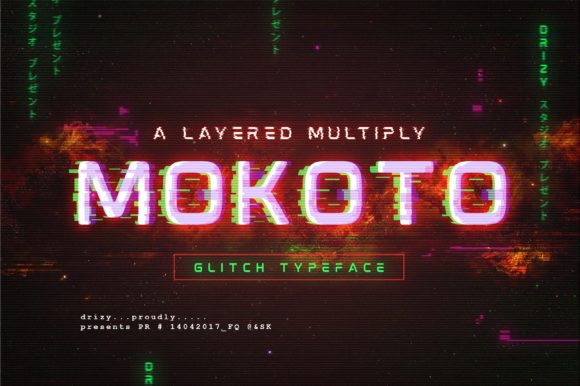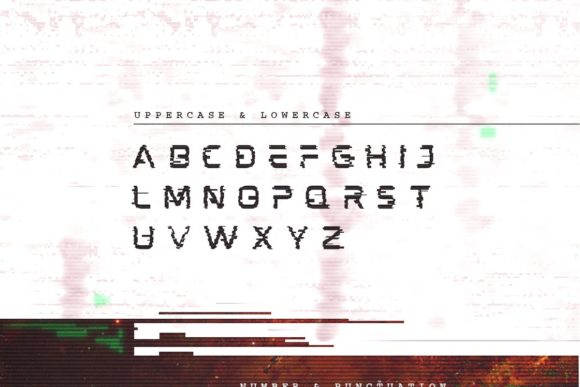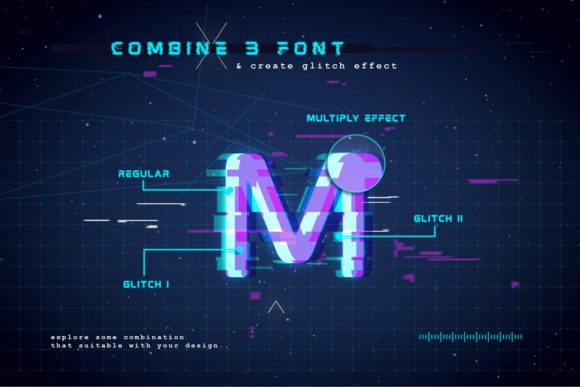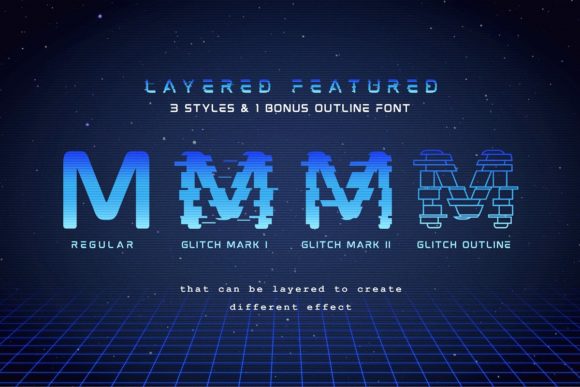
Mokoto Font: A Glitchy Display Font for Bold Logo Design!
About the Mokoto Font
The Mokoto Font is here to transform your projects with its distinctive character and style. Mokoto is a glitchy and digital display font with a postmodern feel. Get inspired by its bold charm!
Mokoto excels in headlines, short impactful statements, and branding applications where a bold, slightly rebellious personality is desired. Its unique glitch effect makes it ideal for projects related to technology, gaming, or music with a futuristic or postmodern edge. Avoid using Mokoto for body text or long paragraphs; its highly stylized nature hinders readability at smaller sizes.
Pairing Mokoto effectively requires a contrasting yet complementary font. A clean sans-serif like Open Sans or a geometric sans-serif like Futura would provide a strong counterpoint, offering readability for supporting text. For a softer contrast, consider a neutral serif like Lato. These pairings allow Mokoto’s bold statement to shine while maintaining visual balance.
Mokoto’s core personality is bold and modern, with a touch of playful disruption. It projects energy and a futuristic aesthetic, making it unsuitable for projects requiring elegance or sophistication.
Mokoto Font Usage Examples
Mokoto Font Example